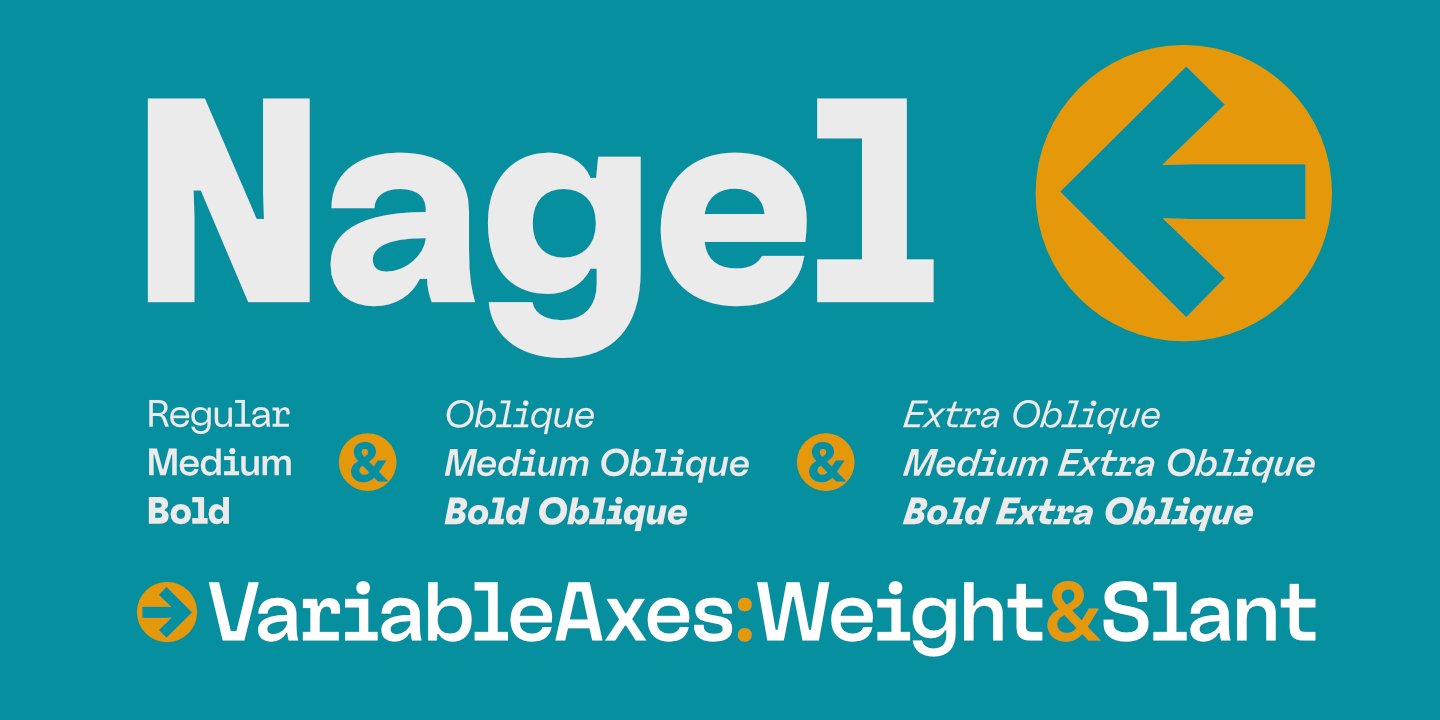
Nagel Font is incredibly versatile, making it perfect for a wide range of design projects. Imagine it gracing the covers of modern magazines, adding a sleek touch to minimalist websites, or bringing a sharp edge to branding for tech startups. It's also an excellent choice for posters, headlines, editorial design, and any project where a strong, contemporary statement is desired. Its clean lines and precise geometry lend themselves beautifully to both digital and print applications, ensuring your message stands out with clarity and impact.
What makes Nagel Font so exciting is its striking balance of sophistication and modern boldness. It possesses a distinctive character that is both highly readable and visually captivating. The crispness of its forms, combined with subtle design nuances, gives it a unique personality that can elevate any design. It's not just a font; it's a design tool that conveys confidence and forward-thinking aesthetics. Whether you're aiming for a high-tech feel or a more refined, elegant look, Nagel Font delivers with precision and style.
The Nagel Font family typically includes a variety of weights to provide maximum flexibility for designers. You can expect to find options like Light, Regular, Medium, SemiBold, Bold, and potentially even Black or Ultra weights, along with corresponding italics. This extensive range allows for hierarchical structuring within your text, ensuring you can create visual emphasis and maintain consistency across different elements of your design. The availability of multiple weights means you can use Nagel Font for everything from subtle body text to impactful headlines, all while maintaining a cohesive visual language. For those looking for Nagel Font Free Download, remember to check the license for commercial use.